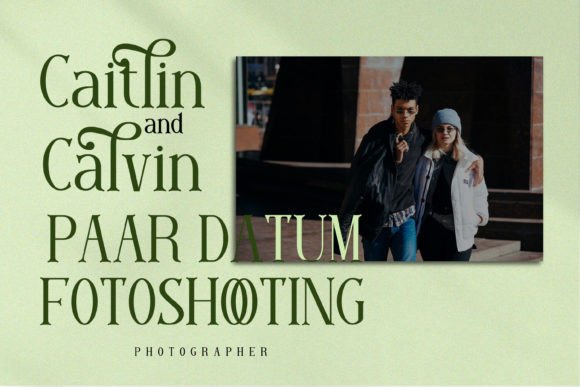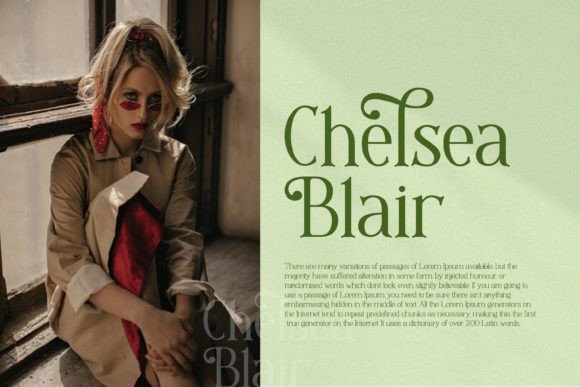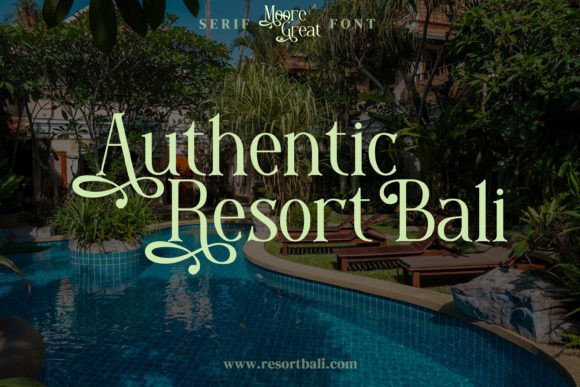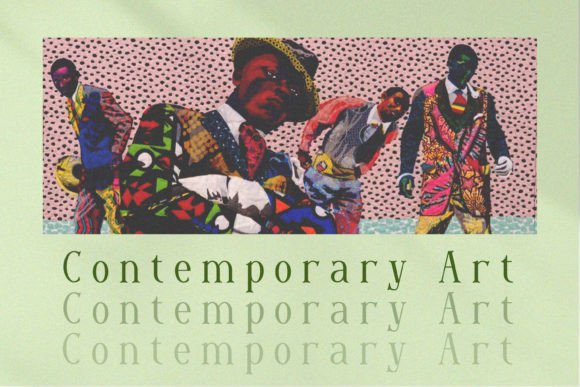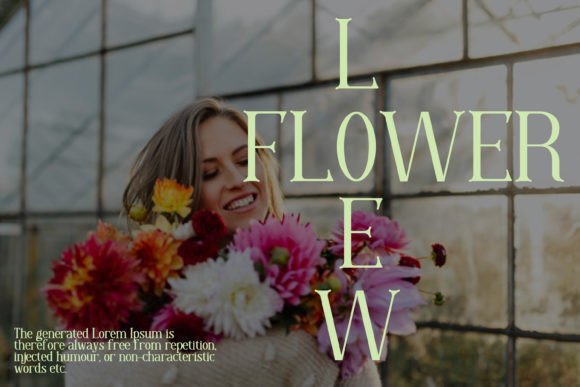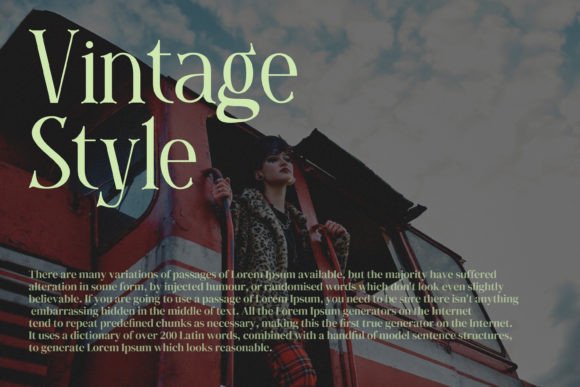
Introduction to Moore Great Font
As a designer, there’s nothing quite like the thrill of bringing a creative project to life. The moment when all the elements come together, and you step back to admire your handiwork – it’s a feeling like no other. But, have you ever struggled to find the perfect font to elevate your design from good to great? That’s where the Moore Great Font comes in – a high-quality, elegant serif font that’s sure to make your designs stand out.
With its delicate curves and serifs, the Moore Great Font is the perfect design resource for any creative project. Whether you’re working on a logo, a brochure, or a website, this font is sure to add a touch of sophistication and class. Plus, with its transparent background and PUA encoding, you’ll have access to all the glyphs and swashes you need to take your design to the next level.
Key Features of Moore Great Font
- High-quality design resource ideal for creative projects requiring a unique touch
- Unique characteristics include a bold and modern aesthetic, with a range of customizable options to suit individual design needs
Honest Review: Moore Great Font
I recently came across the Moore Great Font while working on a creative project and I must say it’s been a game-changer. This font is a high-quality design resource that can elevate any project with its unique style.
- ✨ One of the things that works well for the Moore Great Font is its versatility. It can be used for a variety of creative projects, from digital design to print media.
- ⚠️ The font may not be suitable for very small text sizes, as the letters can become difficult to read.
- ⚠️ Some users may find the font’s unique style to be a bit too bold or overwhelming.
Overall, I’m really impressed with the Moore Great Font and would definitely recommend it to designers looking for a high-quality, unique font to add some flair to their creative projects.
Moore Great Font
Use the Moore Great Font for creative projects, such as graphic design, branding, and marketing materials.
The font is ideal for high-quality design resources, including logos, brochures, and business cards.